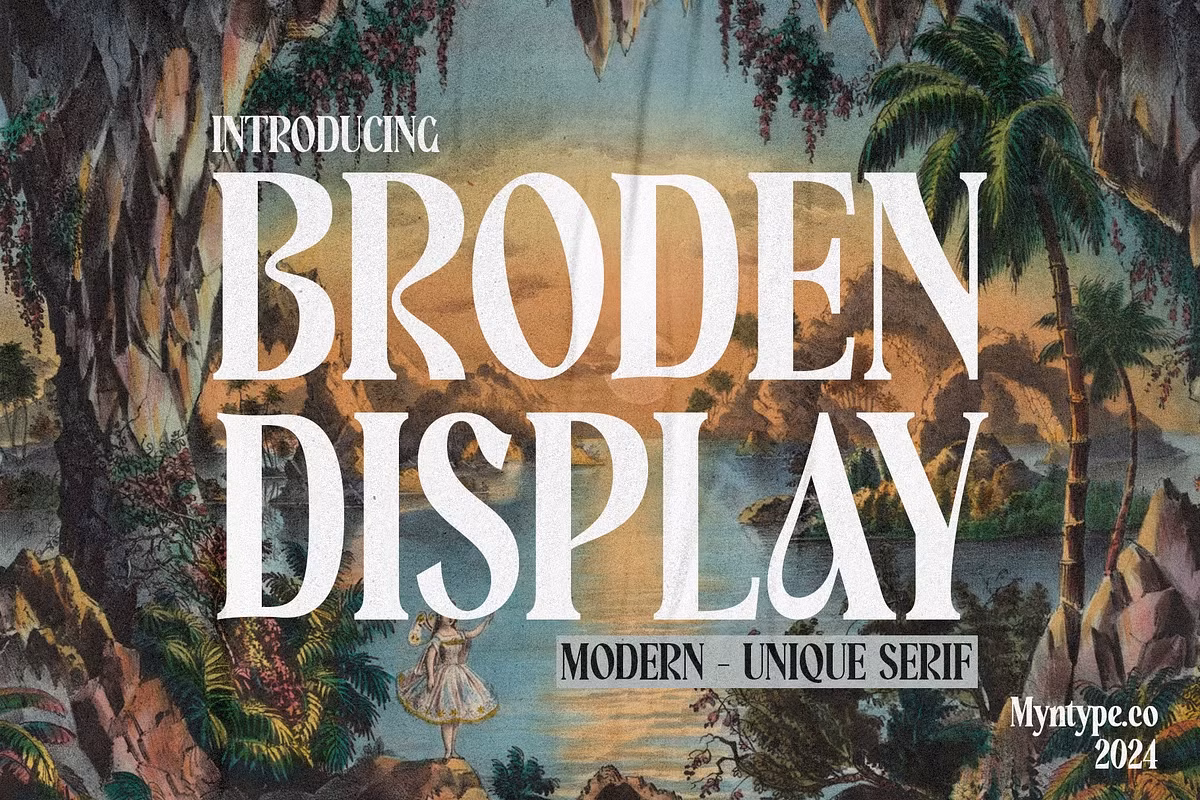
Broden Display - Unique Modern Serif Font Free Download is a bold and distinctive serif typeface that combines modern aesthetics with classic structure. Featuring high contrast, sharp serifs, and an eye-catching design, Broden is perfect for creating impactful headlines, logos, posters, and branding materials. Its unique style gives a strong visual presence to any design project.
Using the Broden Display - Unique Modern Serif Font Free Download adds a sophisticated and professional edge to your typography. Whether you’re working on a fashion brand, designing an editorial layout, or crafting promotional materials, this font ensures your designs stand out with its modern, stylish appeal.